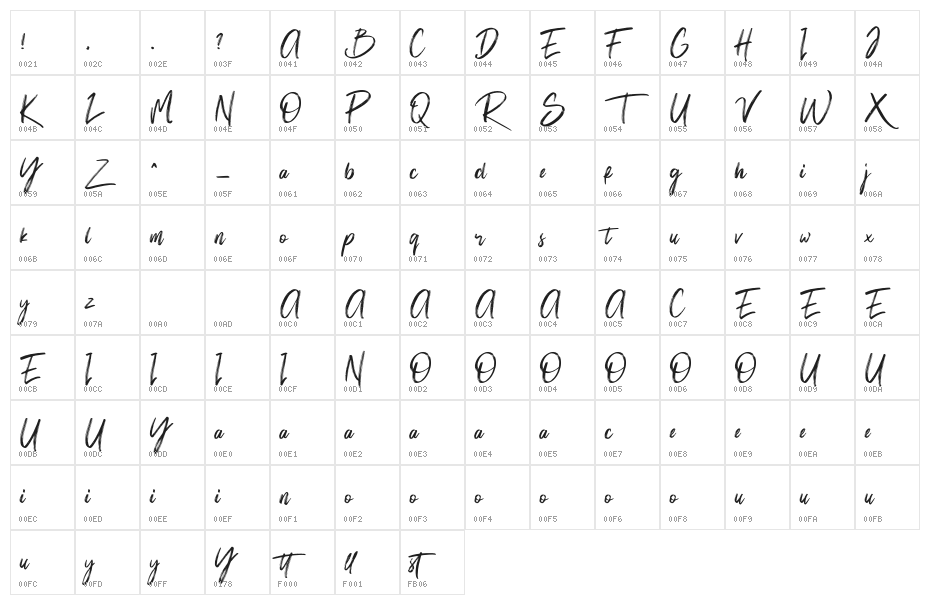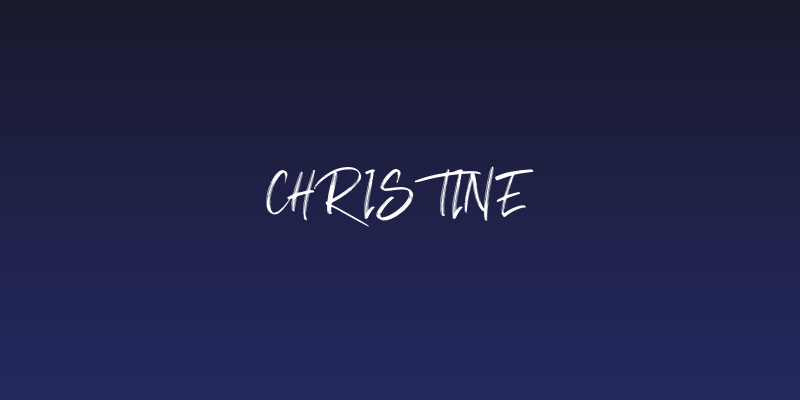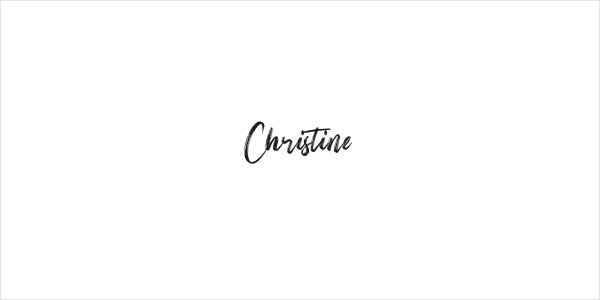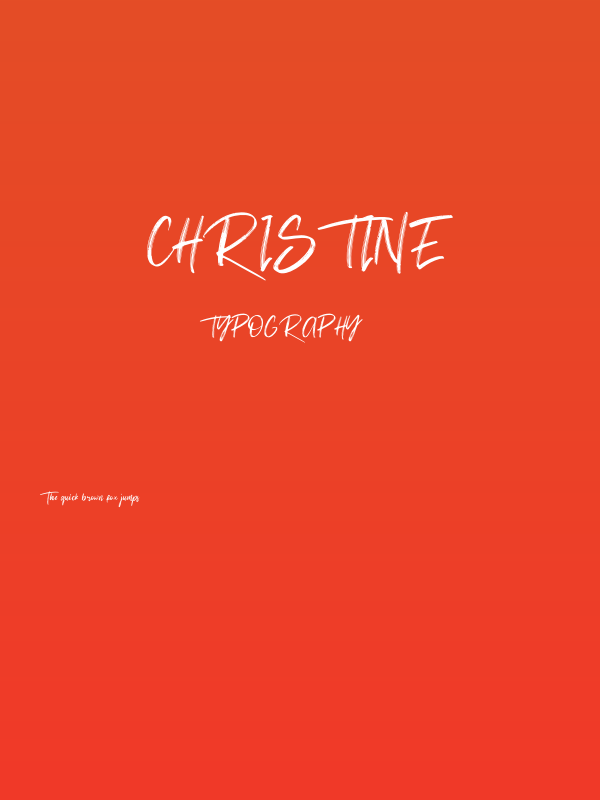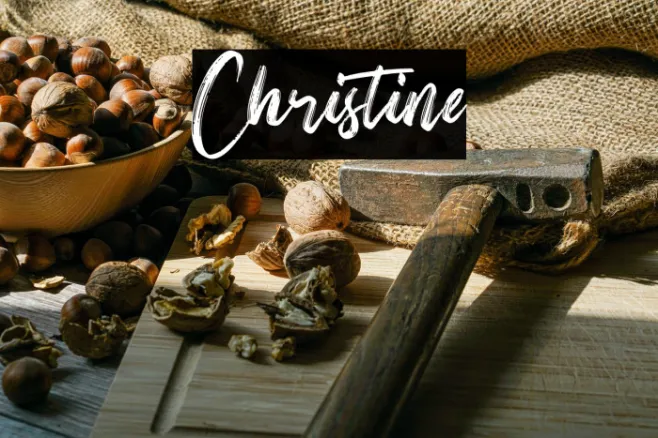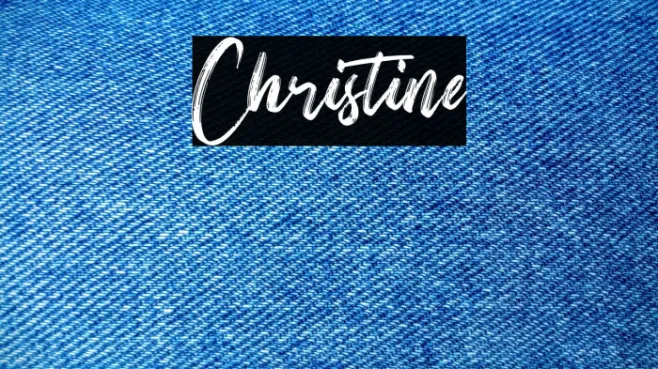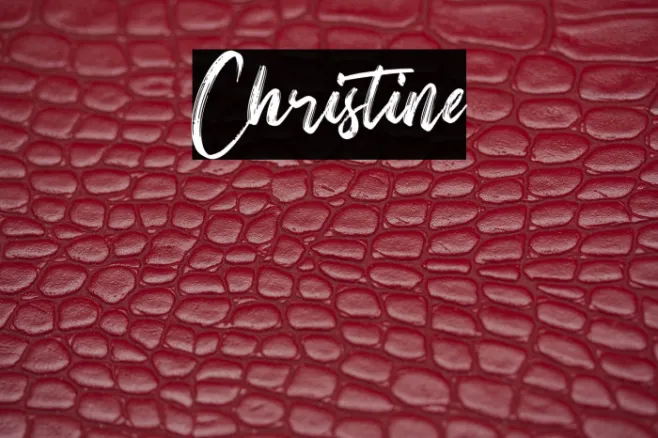
Christine Font
Christine Description
This font features a dynamic and expressive handwritten style, characterized by fluid strokes and a natural flow. The uppercase letters exhibit a bold presence with slightly exaggerated curves, while the lowercase letters maintain a consistent rhythm, adding a touch of elegance. The overall appearance is casual yet sophisticated, making it suitable for a variety of creative projects. The font's brush-like texture gives it a personal and artistic feel, perfect for designs that require a human touch. The spacing between characters is balanced, allowing for readability without compromising its artistic flair.
| Proposed Projects | Ideal for wedding invitations, greeting cards, branding, and social media graphics. |